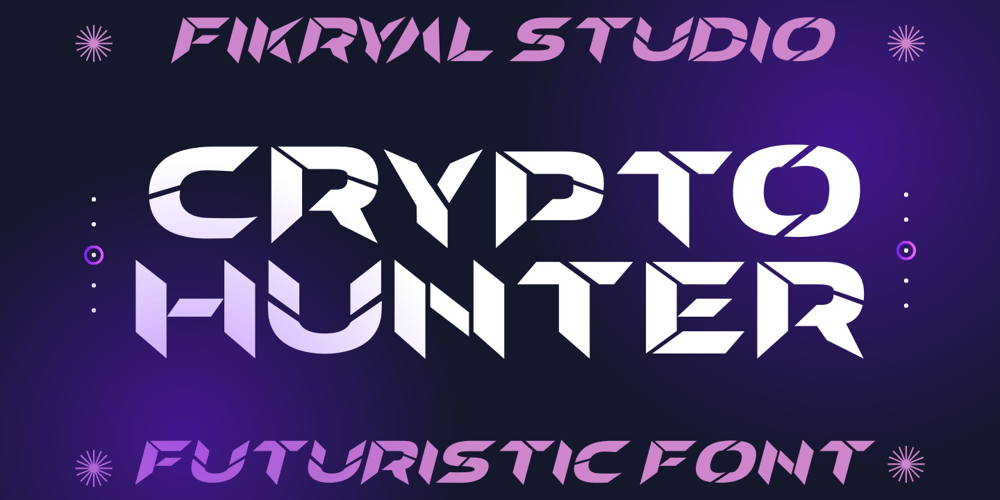
Crypto Hunter Font Family was designed by Muhammad Fikry and published by Fikryal. Crypto Hunter contains 2 styles and family package options. Introducing Crypto Hunter – a font of the future that captivates with its allure. Designed with sophistication and luxury in mind, this all-caps typeface comes in both regular and italic variations. Each character exudes a mesmerizing elegance, appearing as if gracefully split yet retaining an undeniable beauty. With its unique design, Crypto Hunter effortlessly embodies a futuristic essence, making it the perfect choice for projects seeking a modern and advanced aesthetic.Unlock the potential of tomorrow with Crypto Hunter.Thank youBest regardsFikryal Studio